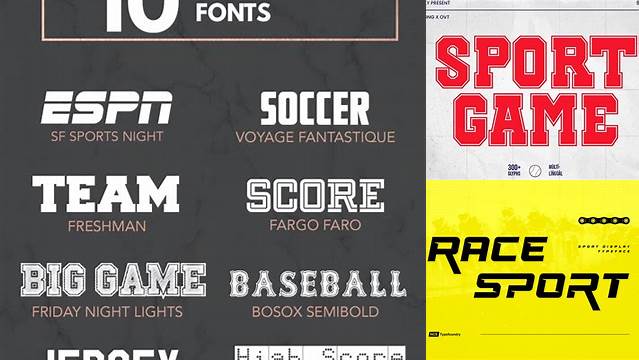
Hey guys! Are you looking to amp up your designs with a touch of darkness and athleticism? You've come to the right place! We're diving headfirst into the world of dark sport fonts, and guess what? You can download many of them for free! These fonts are perfect for a variety of projects, from sports team logos and apparel to gaming graphics and edgy marketing materials. So, get ready to explore some awesome fonts and find the perfect one to give your designs that winning edge. Let's get started, shall we?
Unleashing the Power of Dark Sport Fonts
Dark sport fonts, in their essence, are a powerful design tool. They communicate strength, intensity, and a certain raw energy that's perfect for sports-related themes. Think about the logos of professional sports teams – many of them utilize bold, assertive fonts that convey a sense of dominance and confidence. These fonts often feature sharp angles, thick strokes, and a slightly rugged aesthetic, giving them a distinct visual appeal. But why are dark sport fonts so effective? Well, they tap into our primal instincts, associating darkness with power, mystery, and a hint of danger – all qualities that can be seen in competitive sports. From football and basketball to hockey and mixed martial arts, these fonts can be the difference-maker when it comes to grabbing attention. The combination of a dark aesthetic with a sporty vibe is a match made in design heaven. Moreover, these fonts are versatile. They can be used in headers, subheadings, body text (although, be careful with readability for longer blocks of text), and even in social media graphics. They can also be combined with other design elements such as shadows, gradients, and textures to create even more compelling visuals. The best part? You can find a ton of these fonts available for free download, making them accessible to designers of all levels. So, get creative and start implementing dark sport fonts into your next project to really make it pop!
Diving Deep into the Characteristics of Dark Sport Fonts
When we think about dark sport fonts, several key characteristics come to mind. These aren't just regular fonts with a sporty twist; they are meticulously crafted to evoke specific feelings and aesthetics. Firstly, the boldness factor is crucial. Dark sport fonts are rarely thin or delicate. Instead, they tend to be thick and robust, ensuring they grab attention and command authority. Then there is the use of sharp angles and geometric shapes. This creates a feeling of dynamism and movement, which is fitting for a sport theme. You will frequently see fonts with slanted letters, condensed forms, or even stylized serifs, all working together to amplify the overall effect. Furthermore, dark sport fonts often incorporate a touch of roughness or texture. This could involve a slightly distressed look, a subtle gradient, or even a hint of a shadow to add depth and visual interest. These textural elements give the fonts a gritty, authentic feel, making them appear as though they've been forged in the heat of competition. Another key aspect is the color palette. While dark sport fonts can be used in various colors, they often pair best with deep, moody tones. Think about blacks, grays, deep blues, and rich reds – colors that exude strength and a sense of the unknown. When choosing a dark sport font, you must also think about its personality. Does it feel aggressive, refined, or rebellious? Selecting a font that fits your message is key. The type of font you use can alter the impression of your design, making it perfect for a variety of uses.
Exploring Various Dark Sport Font Styles
Let's get into specific styles and how they're used. You'll see how diverse these fonts can be. From rugged and gritty to sleek and modern, you can be assured there’s a perfect font for every project.
The Rugged and Gritty Dark Sport Font Aesthetic
This style of dark sport font screams raw power and intensity, perfect for designs that need to convey an aggressive or unapologetic vibe. These fonts often feature rough edges, distressed textures, and a slightly worn appearance. Think about fonts that look like they've been chiseled out of stone or spray-painted onto a brick wall. The roughness gives them an authentic, almost rebellious feel, making them ideal for sports like skateboarding, mixed martial arts, or any other activity that embraces a hardcore lifestyle. The key to using rugged and gritty fonts effectively is to pair them with equally bold design elements. You could incorporate textures like concrete, metal, or even scratches to enhance the gritty feel. Dark, moody color palettes, such as deep blacks, charcoal grays, and blood reds, will further amplify the aggressive vibe. You can also use these fonts in combination with dramatic lighting effects and shadow play to create a sense of depth and visual interest. Keep in mind that readability is important, particularly if you're using these fonts for body text. Consider adjusting the spacing or using a different font for longer blocks of text to maintain readability. Using this style of font can be super effective in grabbing someone's attention and leaving a lasting impression. Just make sure to consider what your audience might think and use it in the right places!
Sleek and Modern Dark Sport Fonts: A Contemporary Twist
For a more polished and contemporary look, sleek and modern dark sport fonts are the way to go. This style of font maintains the core elements of a dark, sporty aesthetic but with a cleaner, more refined feel. These fonts often feature geometric shapes, sharp lines, and a minimalist approach, giving them a sophisticated and dynamic appeal. Think about fonts with a futuristic vibe, perfect for sports teams or brands wanting to project a cutting-edge image. These fonts are ideal for designs that target a younger, tech-savvy audience. The sleek and modern aesthetic is also versatile. It can be used in a variety of contexts, from website headers and logos to promotional materials and social media graphics. The goal is to strike a balance between boldness and elegance. Dark colors remain a staple, but these fonts can also be used in combination with bright, vibrant colors to create contrast and visual interest. You might pair a sleek black font with neon greens, electric blues, or vibrant oranges. When choosing a sleek and modern dark sport font, pay attention to its weight, kerning, and overall visual impact. Choose fonts that have a good balance of aesthetics and readability.
Vintage-Inspired Dark Sport Fonts: A Nod to the Past
If you're looking for a touch of nostalgia, vintage-inspired dark sport fonts offer a fantastic way to connect with the past. This style of font takes inspiration from classic sports logos, old-school signage, and retro design elements. These fonts often feature bold serifs, rounded edges, and a slightly distressed or worn appearance, giving them a timeless appeal. This style of font is excellent if you're designing for a brand with a historical element. Vintage-inspired dark sport fonts work really well for sports teams with a rich history, retro-themed events, or designs aimed at older generations. You can use them in logos, jerseys, and promotional materials to create a sense of authenticity and heritage. These fonts also work very well with a vintage design element. You could use a distressed texture to mimic the look of an old poster or incorporate a color palette that is reminiscent of old sports teams. The important thing is to balance the vintage elements with a modern sensibility to prevent the design from looking dated. Remember, the goal is to evoke nostalgia while still keeping the design engaging and relevant.
Dark Sport Font Usage Tips and Best Practices
Okay, guys, here's the deal. You have all these amazing dark sport fonts at your fingertips. Now, how do you actually use them to create stunning designs? Let's go over some pro tips!
Choosing the Right Dark Sport Font for Your Project
Choosing the right dark sport font is like picking the perfect instrument for a band; it has to match the overall tone and vibe of your design. First, consider the sport or theme you're representing. If you're designing for a high-octane sport like football or hockey, a bold, aggressive font might be perfect. If you're working on something for a more technical sport like cycling, a sleeker, more modern font could be a better fit. Then, think about your target audience. Are you trying to reach a young, energetic crowd, or a more mature audience? Your font choice should resonate with their preferences. Take a look at the overall aesthetic of your project. What kind of mood are you trying to create? Do you want something rugged and gritty, or sleek and modern? Your font should complement the other design elements you're using. Make sure your font is readable. Dark sport fonts can be bold and visually striking, but if they're difficult to read, they won't be effective. Finally, don't be afraid to experiment. Try out different fonts and combinations to see what looks best. The more familiar you become with various dark sport fonts, the better you'll be at selecting the perfect one for each project.
Pairing Dark Sport Fonts with Other Design Elements
Mastering font pairings is a crucial design skill that can really elevate your work. Remember, the font should work in harmony with other design elements. When pairing dark sport fonts, contrast is your best friend. The goal is to create visual interest and make your design more engaging. If your dark sport font is super bold and attention-grabbing, balance it with a simpler, more neutral font for body text. This will help improve readability and prevent your design from becoming overwhelming. Consider using a contrasting color palette. If your dark sport font is black or dark gray, you can pair it with bright, vibrant colors to create a striking visual effect. Consider other design elements too, like images, icons, and textures. If you're using a gritty dark sport font, you might want to incorporate textures like concrete or metal to enhance the overall aesthetic. Experiment with different layouts and compositions to see what works best. Sometimes, the most effective font pairings are the ones you don't expect.
Optimizing Readability and Legibility in Dark Sport Font Designs
Let's be honest, a visually stunning design means nothing if it's unreadable. Optimizing readability and legibility is super important when working with dark sport fonts. First, pay close attention to the font size. The size of your text should be appropriate for the context. Keep in mind the viewing distance and use it for its correct usage. Then comes letter spacing and line spacing. Dark sport fonts can be bold, so make sure there is enough space between letters and lines. This will prevent the text from looking too cramped. Consider using a font that has a good balance of aesthetics and readability. Some dark sport fonts are designed to be visually striking, but they can be difficult to read. Make sure the font is legible, especially when used for body text. Also, think about contrast and color. This is an important step for readability and legibility. Use dark fonts on a light background or vice versa. Avoid using dark fonts on dark backgrounds, or light fonts on light backgrounds. Finally, test your design on different devices and screen sizes. What looks great on your desktop might be difficult to read on a mobile phone. By following these tips, you can ensure that your designs are visually stunning and easy to understand.
Advanced Tips for Dark Sport Font Mastery
Ready to level up your dark sport font game? Let's explore some advanced techniques to make your designs stand out even more!
Customizing and Modifying Dark Sport Fonts
Have you ever felt like a font is almost perfect, but it just needs a little tweak? Customizing and modifying your dark sport fonts allows you to create a truly unique design. You can adjust the kerning (the space between letters) to improve readability or to achieve a specific visual effect. You can also add or remove serifs, adjust the weight of the font, or even modify individual characters. Many font editing tools are available, from simple online editors to more advanced software. Use these to bring your creative visions to life. Another option is to combine elements from different fonts to create a hybrid. Mix the boldness of one font with the angles of another, or add custom flourishes to give your font its own personality. While modifying fonts can be a fantastic creative outlet, it's also important to stay within the license terms of your chosen font. Not all fonts allow for extensive modification, so be sure to check the fine print. Customizing and modifying your dark sport fonts opens up a world of creative possibilities, allowing you to create designs that are truly one-of-a-kind.
Creating Dynamic Typography with Dark Sport Fonts
Dynamic typography takes your designs to a whole new level, making them more engaging and visually stunning. One technique is to use text layering to create depth and dimension. Overlap different layers of text to create a sense of visual interest and draw the viewer's eye. Consider using different colors, sizes, and weights for each layer. Another technique is to incorporate motion graphics into your typography. You can use animation software to animate individual letters, words, or even entire phrases. Think about adding effects like fade-ins, fly-ins, or even slight movements to enhance the overall impact of your design. You can also experiment with different text arrangements. Use curves, angles, and diagonal lines to create dynamic and visually interesting layouts. Don't be afraid to break the rules and think outside the box. By using dynamic typography, you can transform your designs into compelling visual experiences.
Licensing and Usage Rights: What You Need to Know
Before you start using dark sport fonts, it's important to understand licensing and usage rights. This helps you to avoid any legal issues and ensures you are using the fonts appropriately. Most fonts are available under different licensing terms, such as commercial use, personal use, or even open-source licenses. Commercial use allows you to use the font for projects that generate income, while personal use is typically restricted to non-commercial projects. Make sure to check the specific license terms for each font before using it in any design. Some fonts require you to purchase a license if you are using them for commercial purposes. Other fonts are available for free, but they may have limitations on how you can use them. Read the license carefully. Some fonts have restrictions on where you can use them, or how many times you can use them. If you plan to embed a font in a website or app, be sure to check the licensing terms. Some fonts may require special licenses for this purpose. It is your responsibility to understand and comply with the licensing terms of any font you are using. By taking the time to understand the licensing and usage rights, you can use dark sport fonts with confidence and avoid any legal problems.
Popular Dark Sport Font Examples and Inspiration
Need some inspiration, guys? Let's dive into some of the most popular and inspiring dark sport fonts out there.
Top Dark Sport Fonts for Logos and Branding
When it comes to creating a strong brand identity, the right font is key. Here are some top dark sport fonts that are excellent for logos and branding projects. First, there's Impact. Impact is a classic dark sport font known for its boldness and impact. It's ideal for logos that need to grab attention immediately. Another popular choice is Bebas Neue. Bebas Neue is a sans-serif font with a clean, modern aesthetic. It's versatile and can be used for a variety of branding projects. Then there's Oswald. Oswald is a condensed font designed for use on the web. It has a strong presence and is great for logos. The type of font you use can have a huge impact on how your brand is perceived. Remember to keep your target audience in mind when selecting your font, and also remember to consider the overall aesthetic of your brand. These fonts, and many others, can be great choices when it comes to creating the perfect logo.
Dark Sport Fonts for Apparel and Merchandise Design
Apparel and merchandise design allows for creative use of dark sport fonts. You can use fonts to create designs that are bold, eye-catching, and perfect for clothing and other merchandise. The most popular fonts for apparel are the same ones often used for logos and branding, such as Impact and Bebas Neue. These fonts' bold designs can stand out really well on t-shirts, hoodies, and other clothing items. For a more vintage look, you could use a font that is inspired by classic sports logos, which is perfect for apparel designs. You can also combine dark sport fonts with other design elements, such as illustrations, graphics, and textures, to create unique and eye-catching designs. The most important thing is to choose fonts that complement your design and that will make your apparel stand out from the crowd. Keep in mind, apparel is all about visibility. Using bold fonts and unique designs are the perfect recipe to make your clothing successful.
Dark Sport Fonts for Gaming and Esports Graphics
Gaming and esports are all about intensity, competition, and visual flair. Dark sport fonts are a perfect fit for creating compelling graphics for these industries. In the gaming world, fonts are often used in logos, titles, and overlays. They can also be used for creating promotional materials, such as posters, banners, and social media graphics. Popular fonts for gaming graphics often feature sharp angles, bold strokes, and a futuristic aesthetic. You'll often see fonts with a distressed or glitch effect to enhance the modern and edgy feel. When choosing fonts for gaming graphics, consider the overall style of your game or brand. Is it a high-octane action game, or a more strategic and technical esports team? Your font choice should match the tone. Remember to create graphics that capture the attention of the target audience. Dark sport fonts and bold designs are a great choice for making a name for yourself in the world of gaming.
Final Thoughts: Getting Started with Dark Sport Fonts
There you have it, my friends! A comprehensive guide to the world of dark sport fonts, from finding free downloads to mastering their use. Now, it's time to put this knowledge to work! Go out there, explore the resources, download some amazing fonts, and start creating designs that pack a punch. Whether you're designing a logo, a website header, or a social media graphic, dark sport fonts can help you achieve your creative goals. Don't be afraid to experiment, get creative, and most importantly, have fun! The world of design is all about expressing yourself, and dark sport fonts offer a fantastic way to do just that.
Conclusion: Unleash Your Inner Design Champion
So, are you ready to unleash your inner design champion? With the power of dark sport fonts at your fingertips, you can create designs that are visually stunning, impactful, and memorable. Remember to choose the right fonts for your project, pair them with other design elements, and optimize readability and legibility. Don't forget to customize your fonts, create dynamic typography, and understand the licensing and usage rights. With a bit of creativity, you can create designs that truly stand out from the crowd. Embrace the darkness, embrace the sport, and start creating awesome designs today! And remember to keep it fun, keep exploring, and keep pushing your creative boundaries. The world of design is always evolving, so stay curious, stay inspired, and never stop learning. Now, go forth and conquer the world of design, one amazing font at a time!